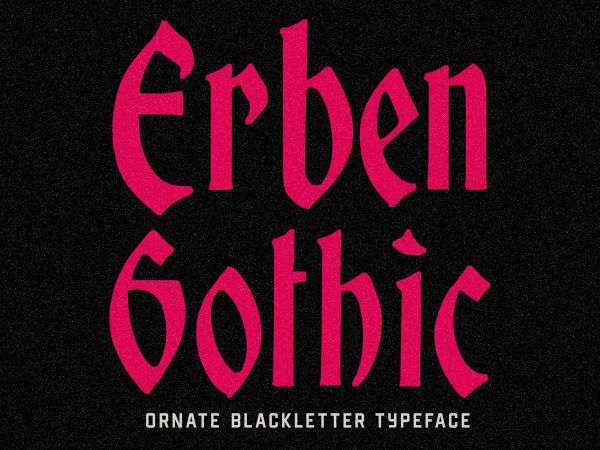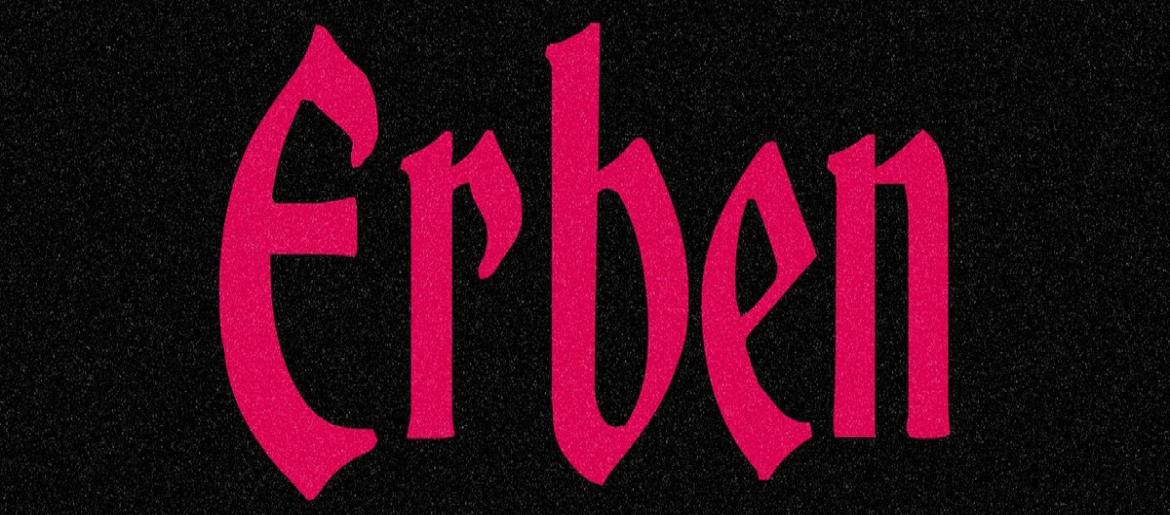
Erben Gothic Font
Erben Gothic by Bart T is an ornate blackletter typeface steeped in medieval atmosphere and gothic craft. Its elaborate letterforms draw on the decorative tradition of historical blackletter — intricate, weighty, and richly detailed — making it an expressive choice for display work that calls for drama and historical gravitas. Whether applied to band branding, editorial headlines, game titles, apparel, or any project where gothic weight and ornamental character are part of the design language, Erben Gothic commands attention. Released as the designer’s debut typeface and offered free for all uses under a standard commercial license.